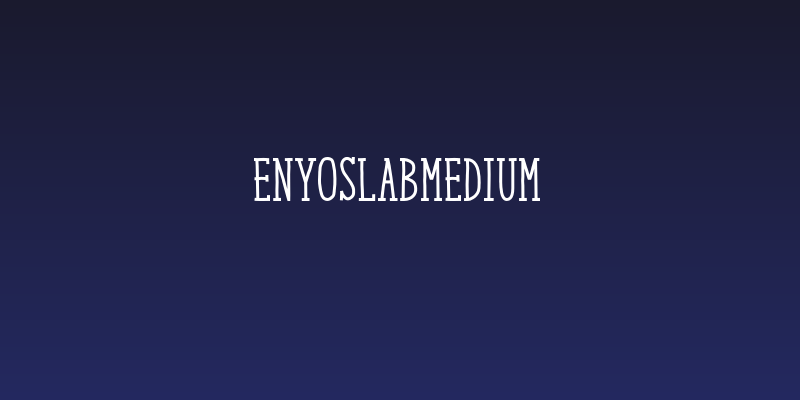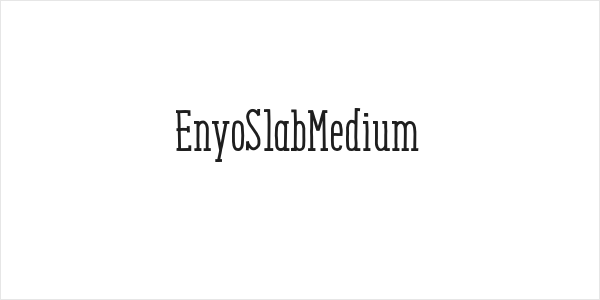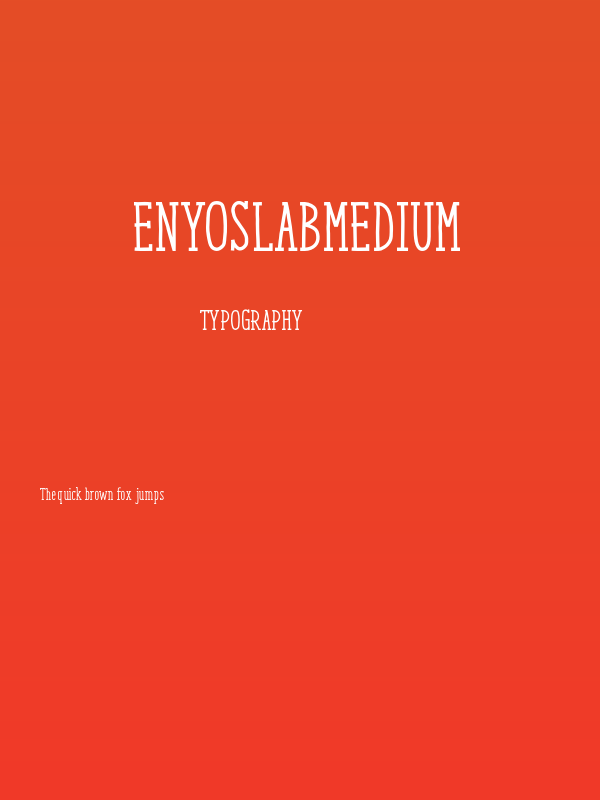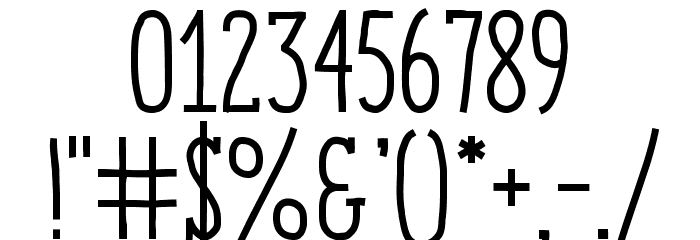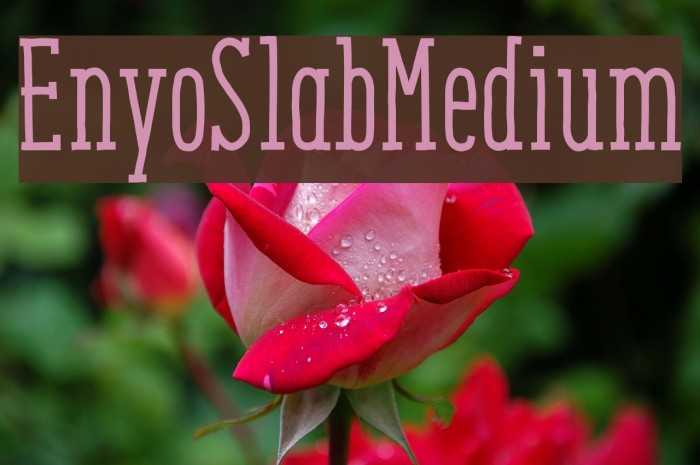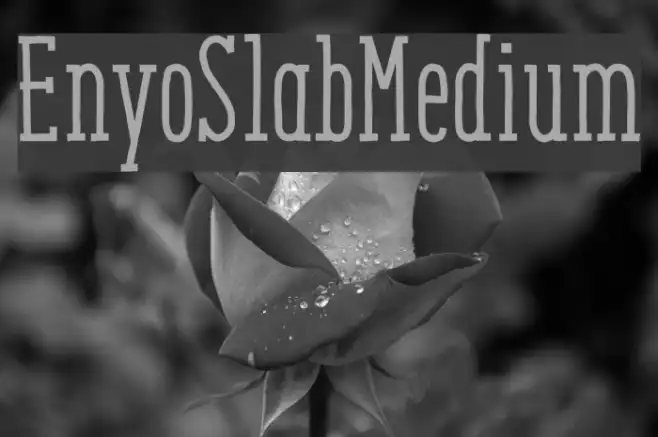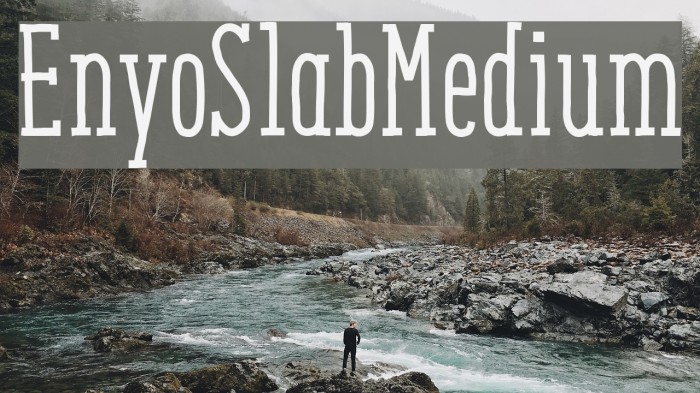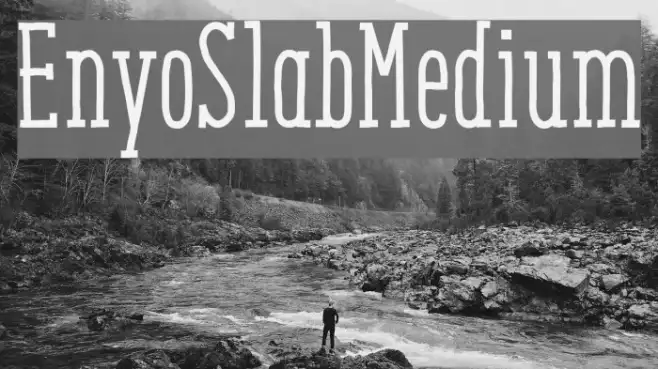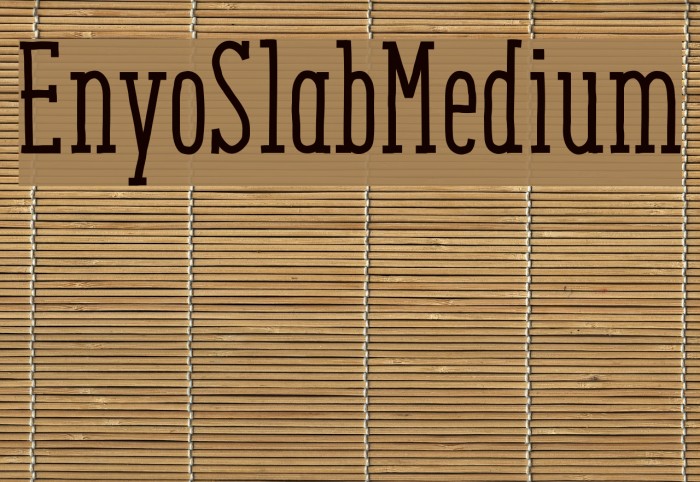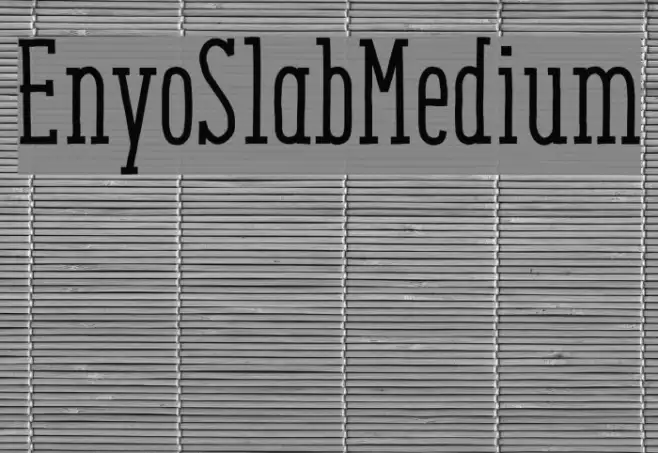
EnyoSlabMedium Font
EnyoSlabMedium Description
This font exhibits a robust and structured appearance, characterized by its slab serif design. The serifs are prominent and block-like, providing a sense of stability and strength. The uppercase letters are tall and commanding, while the lowercase letters maintain a consistent height that complements the overall design. The numerals are clear and legible, making them suitable for various applications. Special characters are well-defined, adding versatility to the font's use. The strokes are moderately thick, contributing to a medium contrast that balances readability with style. This font is ideal for projects that require a bold and authoritative presence.
| Proposed Projects | Ideal for headlines, posters, branding, and editorial design where a bold and authoritative look is desired. |